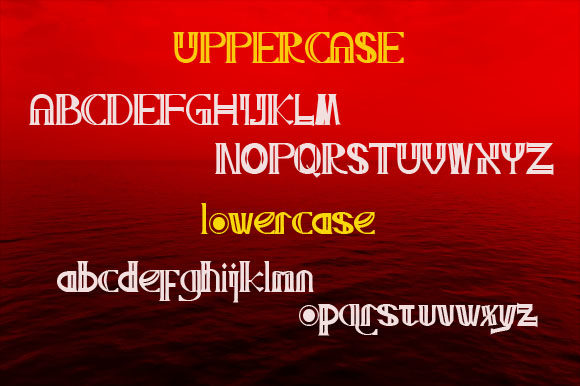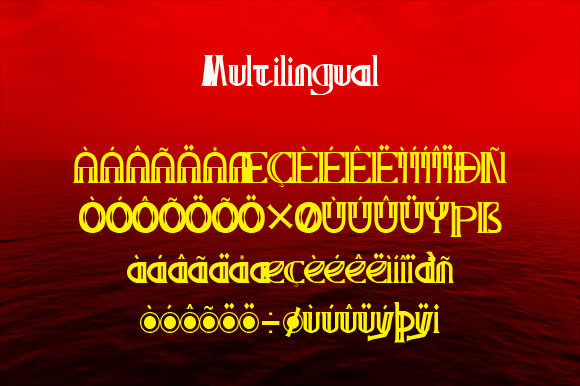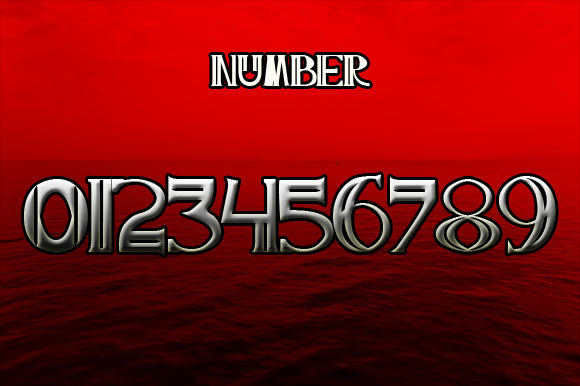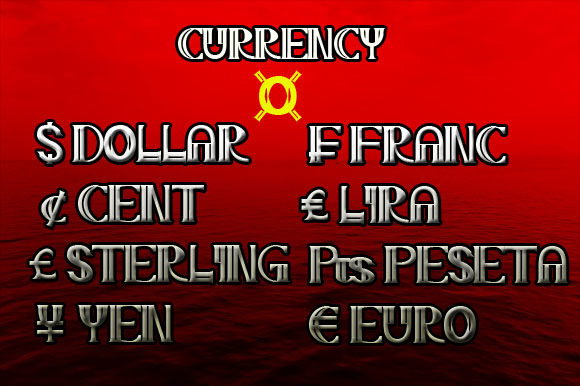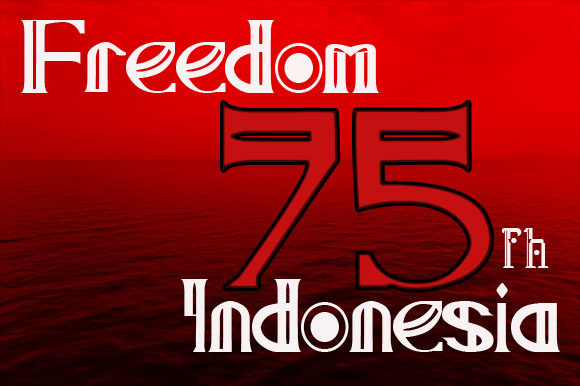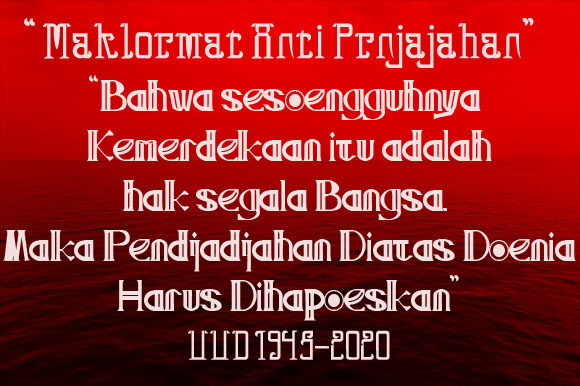
Unleash Your Creativity with Dirgahayu Font
Have you ever stared at a blank canvas, waiting for that spark of inspiration to strike? The moment when everything comes together and your design takes shape – it’s a rush like no other. For designers, this feeling is what drives us to create something truly special. And that’s where the Dirgahayu Font comes in – a playfully conceptual display font that’s sure to elevate your projects to new heights.
Dirgahayu Font is more than just a font – it’s a statement piece that adds a touch of personality to any design. Its unique style makes it perfect for a wide range of contexts, from branding and advertising to digital and print media. Whether you’re a seasoned pro or just starting out, Dirgahayu Font is a valuable addition to your design toolkit. With its versatility and playfulness, you’ll be able to take your designs to the next level and make a lasting impression on your audience.
Key Features of Dirgahayu Font
- Font Size: 3,900 glyphs, making it a comprehensive and versatile font
- Language Support: Supports multiple languages, including Indonesian and English
- Unique Characteristics: Features a modern and elegant design with a unique blend of traditional and contemporary elements
- Resolution: Supports high-resolution displays, making it suitable for use in various digital media
Dirgahayu Font Review
I recently had the chance to work with Dirgahayu Font, and I must say it’s an interesting find. The font has a lot of character, which is exactly what it’s aiming for.
- ✨ Unique aesthetic: Dirgahayu Font has a distinct look that sets it apart from other fonts. It’s perfect for designers looking to add some cultural flair to their projects.
- ✨ Customizability: The font comes with a range of weights and styles, giving users a lot of flexibility when it comes to incorporating it into their designs.
- ✨ Versatility: Whether you’re working on a logo, brochure, or web page, Dirgahayu Font is adaptable and can fit in with a variety of design styles.
However, there are some limitations:
- ⚠️ Limited language support: As a font that celebrates Indonesian culture, it’s a shame that Dirgahayu Font doesn’t support more languages. This might limit its appeal to designers working on multilingual projects.
- ⚠️ Kerning issues: In some cases, the font’s kerning can be a bit off, leading to awkward spacing between letters.
Overall, Dirgahayu Font is a solid choice for designers looking to add some cultural flair to their projects. While it has its limitations, the unique aesthetic and customizability make it worth considering. Just be mindful of the language support and kerning issues.
Practical Application Guide for Dirgahayu Font
Tips for Getting the Most Out of Dirgahayu Font
Dirgahayu Font is best used for titles, headings, and other emphasis text.
Pair the font with a clean and modern design to create a professional look.
Experiment with different font sizes and colors to create visual hierarchy in your design.
Dirgahayu Font is commonly used for:
Business cards and brochures
Event signage and marketing materials